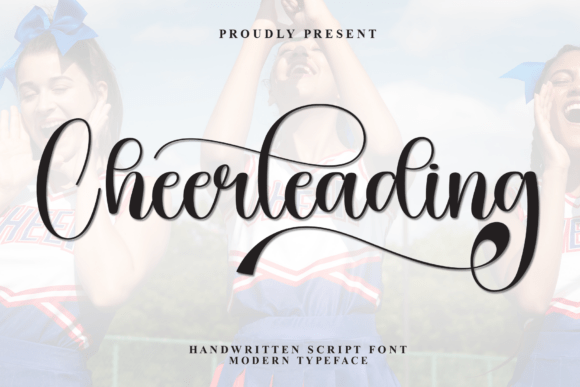
Meet the Perfect Companion for Your Next Design Project
Have you ever stared at a blank page, searching for the perfect font to bring your design to life? You know the feeling – like a spark is missing, and you just can’t quite put your finger on it. That’s where the Cheerleading Font comes in – a stylish script font that exudes elegance and contemporary charm.
This beautifully crafted font is designed to add a refined and sophisticated touch to any design. Whether you’re creating a logo, invitation, packaging, or social media graphic, the Cheerleading Font is the perfect companion to help you achieve your creative vision. Its natural flow and polished details make it a valuable asset for designers looking to elevate their work and leave a lasting impression.
Cheerleading Font Key Features
- Unique Characteristics: Features a bold, dynamic, and energetic design, perfect for capturing the spirit of cheerleading and sports events.
- Font Style: Available in both Regular and Bold weights, providing options for different design applications and emphasis.
Design Review: Cheerleading Font
At first glance, Cheerleading Font seems like a fun, energetic font that’s perfect for sports teams or kids’ activities. ✨ The bold, playful lines and rounded edges give it a friendly, approachable vibe that’s sure to grab attention. ✨ I also appreciate the variety of font styles, including bold, italic, and outline options.
- Font styles are diverse and offer flexibility for different design needs.
- The font is easy to read, even at small sizes.
- The playful, energetic feel is perfect for sports teams or kids’ activities.
However, there are some limitations that hold it back from being a truly great font. ⚠️ The font is not scalable, which means it may not look as good at larger sizes. ⚠️ Additionally, the font is not as versatile as some other options, which may limit its use in more formal or professional designs.
Overall, Cheerleading Font is a fun, energetic font that’s perfect for sports teams or kids’ activities. While it may not be the best choice for more formal or professional designs, it’s a great option for anyone looking for a playful, attention-grabbing font.
The Cheerleading Font is perfect for:
- Sports-themed designs and events
- Fun and playful branding
- Creating energetic and motivational text